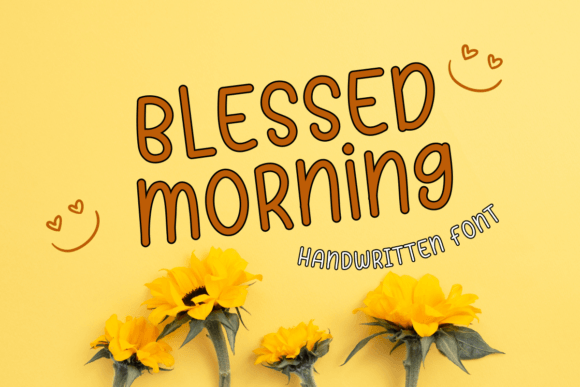
Blessed Morning Font: A Beautiful Handwritten Font for Creative Projects
In the world of typography, a good font can make all the difference in the aesthetic and effectiveness of a design project. For those looking for a unique and personal touch, the Blessed Morning Font is an excellent choice. This beautiful handwritten font is perfect for a variety of creative projects, from taking notes and writing diaries to making greeting cards and more.
What is Blessed Morning Font?
Blessed Morning Font is a handwritten font designed to bring a personal and warm touch to any design project. Its unique and elegant style makes it perfect for a wide range of applications, from everyday writing to creative projects. The font is carefully crafted to ensure that it is both legible and visually appealing, making it an excellent choice for anyone looking to add a personal touch to their designs.
Uses of Blessed Morning Font
One of the best things about Blessed Morning Font is its versatility. While it is perfect for:
- Taking notes: The font’s clear and legible style makes it ideal for note-taking, allowing you to add a personal touch to your study materials or work notes.
- Writing a diary: The handwritten style of the font creates a sense of intimacy and warmth, making it perfect for diary writing.
- Making greeting cards: The font’s elegant and personal style makes it an excellent choice for creating greeting cards for special occasions.
However, the uses of Blessed Morning Font don’t stop there. You can also use it for other design projects, such as:
- Banners: Create eye-catching banners with the Blessed Morning Font to add a personal touch to your events or promotions.
- Content creation: Use the font to create engaging and visually appealing content for your blog or social media channels.
- Mugs: Add a personal touch to your mugs with the Blessed Morning Font, making them perfect for gifts or personal use.
- Cards: Create beautiful and unique cards for special occasions, such as birthdays, weddings, or holidays.
- Shirts: Design custom t-shirts with the Blessed Morning Font to add a personal touch to your apparel.
- Stationery: Use the font to create custom stationery, such as notebooks, journals, or letterheads.
- Social media posts: Add a personal touch to your social media posts with the Blessed Morning Font, making them stand out from the crowd.
Benefits of Using Blessed Morning Font
There are several benefits to using the Blessed Morning Font for your design projects. Some of the most significant advantages include:
- Unique and personal touch: The font’s handwritten style adds a unique and personal touch to your designs, setting them apart from others.
- Legibility: The font is carefully crafted to ensure that it is both legible and visually appealing, making it easy to read and understand.
- Versatility: The font’s versatility makes it perfect for a wide range of design projects, from everyday writing to creative projects.
Tips for Getting the Most Out of Blessed Morning Font
Here are some tips for getting the most out of the Blessed Morning Font:
- Experiment with different sizes: Try using the font in different sizes to see how it looks and to find the perfect size for your design project.
- Pair with other fonts: Experiment with pairing the Blessed Morning Font with other fonts to create a unique and visually appealing design.
- Use it consistently: Use the font consistently throughout your design project to create a cohesive and professional look.
- Add embellishments: Consider adding embellishments, such as lines or shapes, to enhance the font and make it more visually appealing.
In conclusion, the Blessed Morning Font is a beautiful handwritten font that is perfect for a wide range of design projects. Its unique and personal style makes it an excellent choice for anyone looking to add a personal touch to their designs. With its versatility, legibility, and ease of use, the Blessed Morning Font is a great addition to any designer’s toolkit.